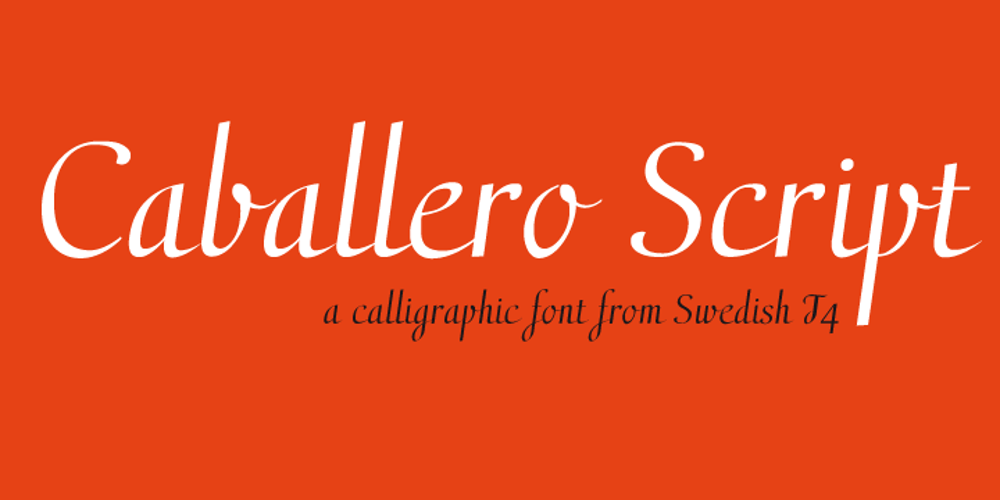
Caballero Script Font Family was designed by Bo Berndal and published by T4 Foundry. Caballero Script contains 1 styles and family package options. Caballero Script is a calligraphic font from from Swedish type designer Bo Berndal and the T4 font foundry. Caballero is inspired by Spanish handwriting from 15th and 16th century, minus the extremely long ascenders. If it would be music or a dance, it would be a Flamenco – there is fire as well as discipline. It is an OpenType creation, for both PC and Mac.